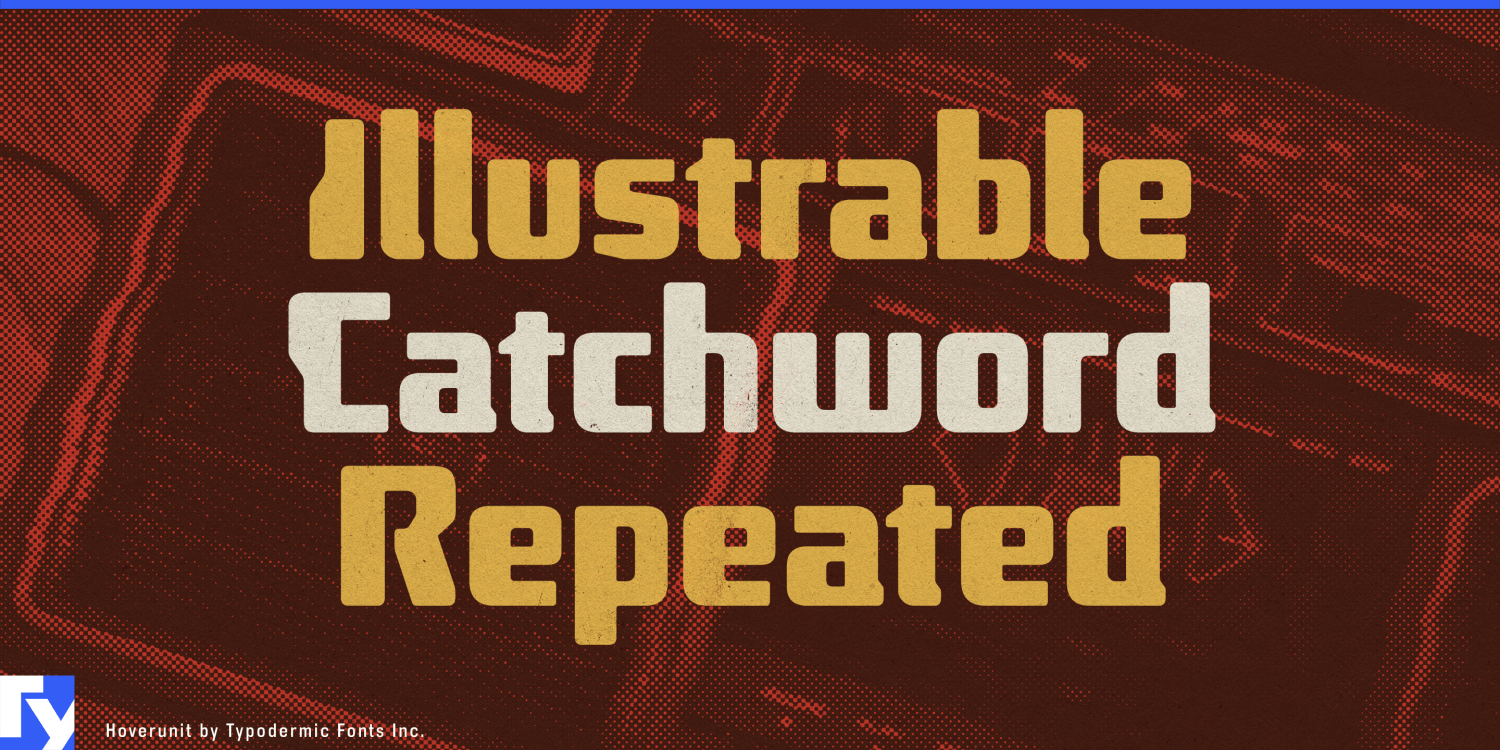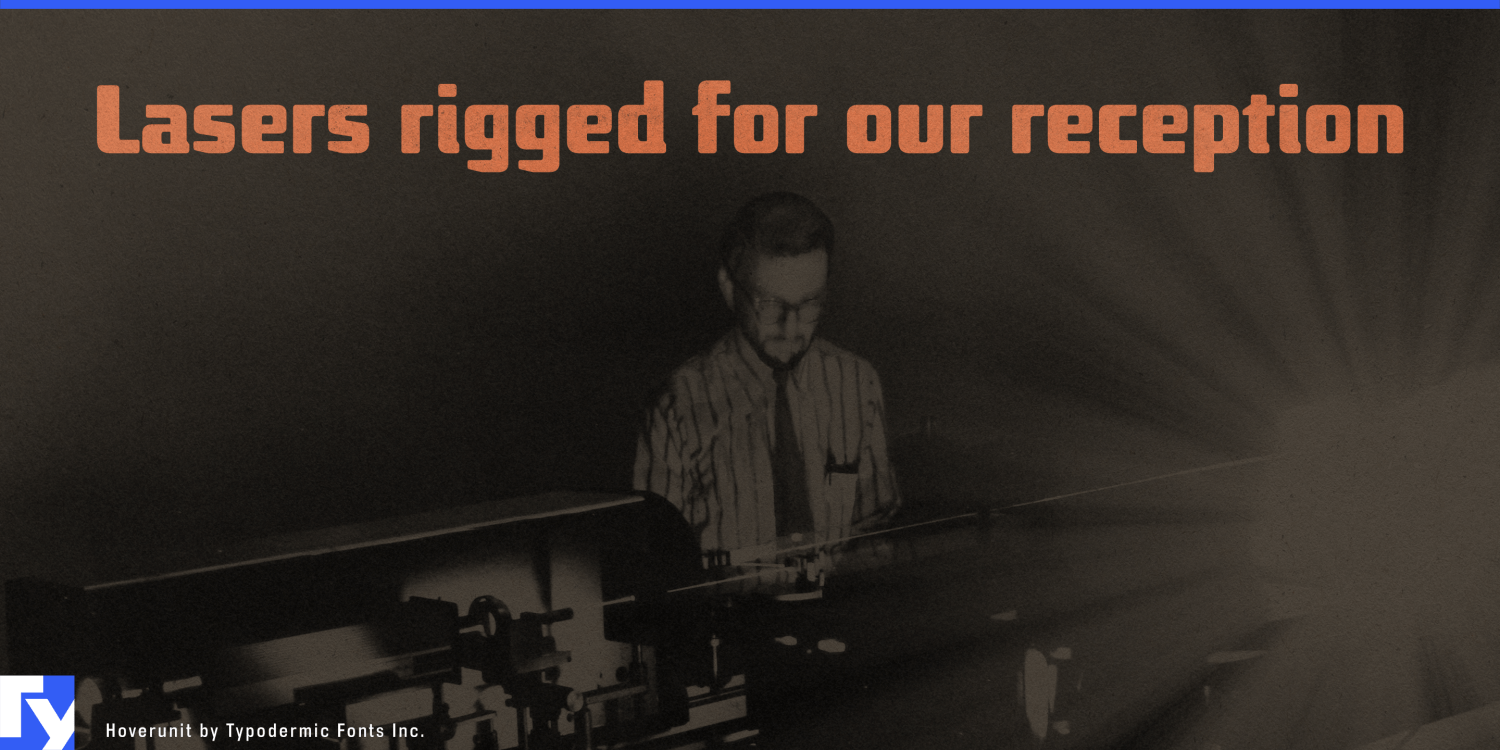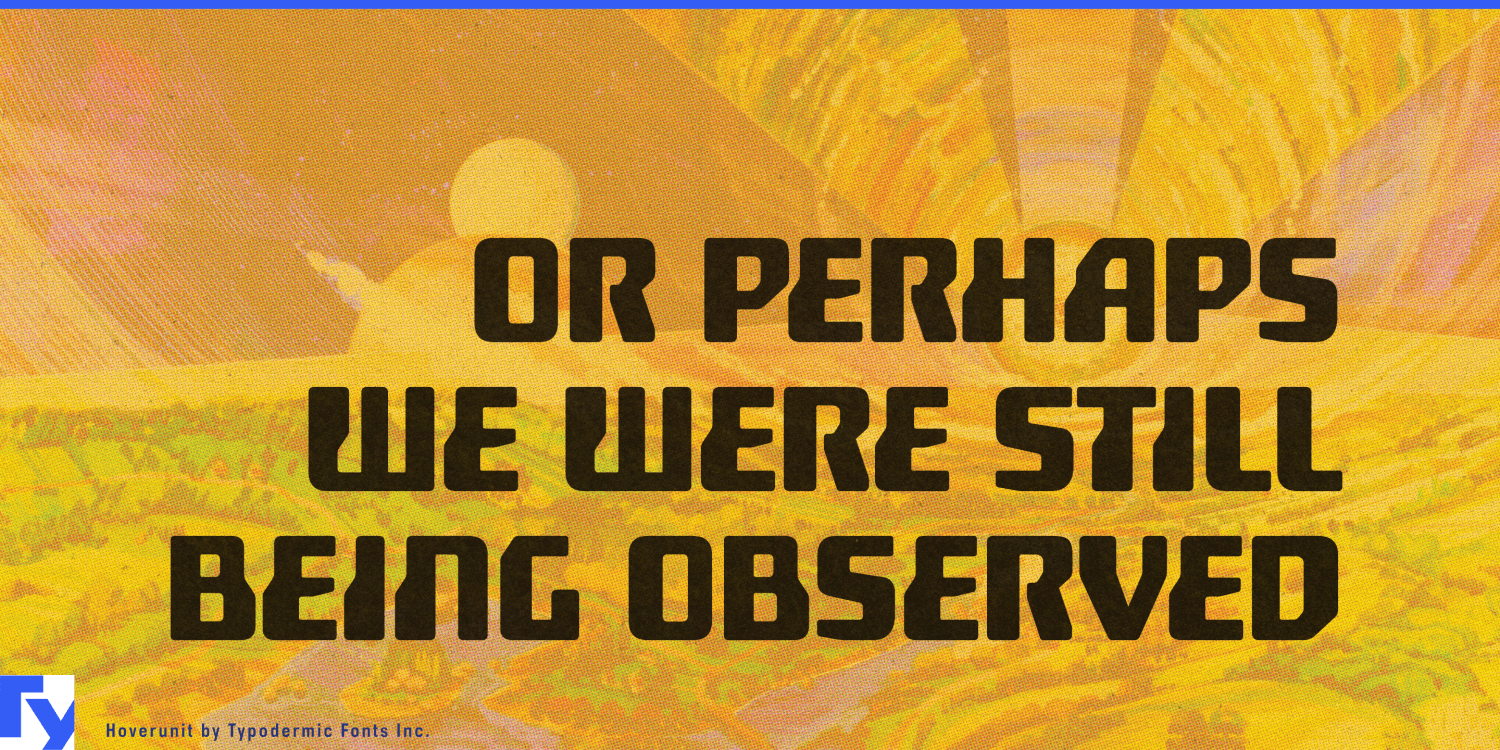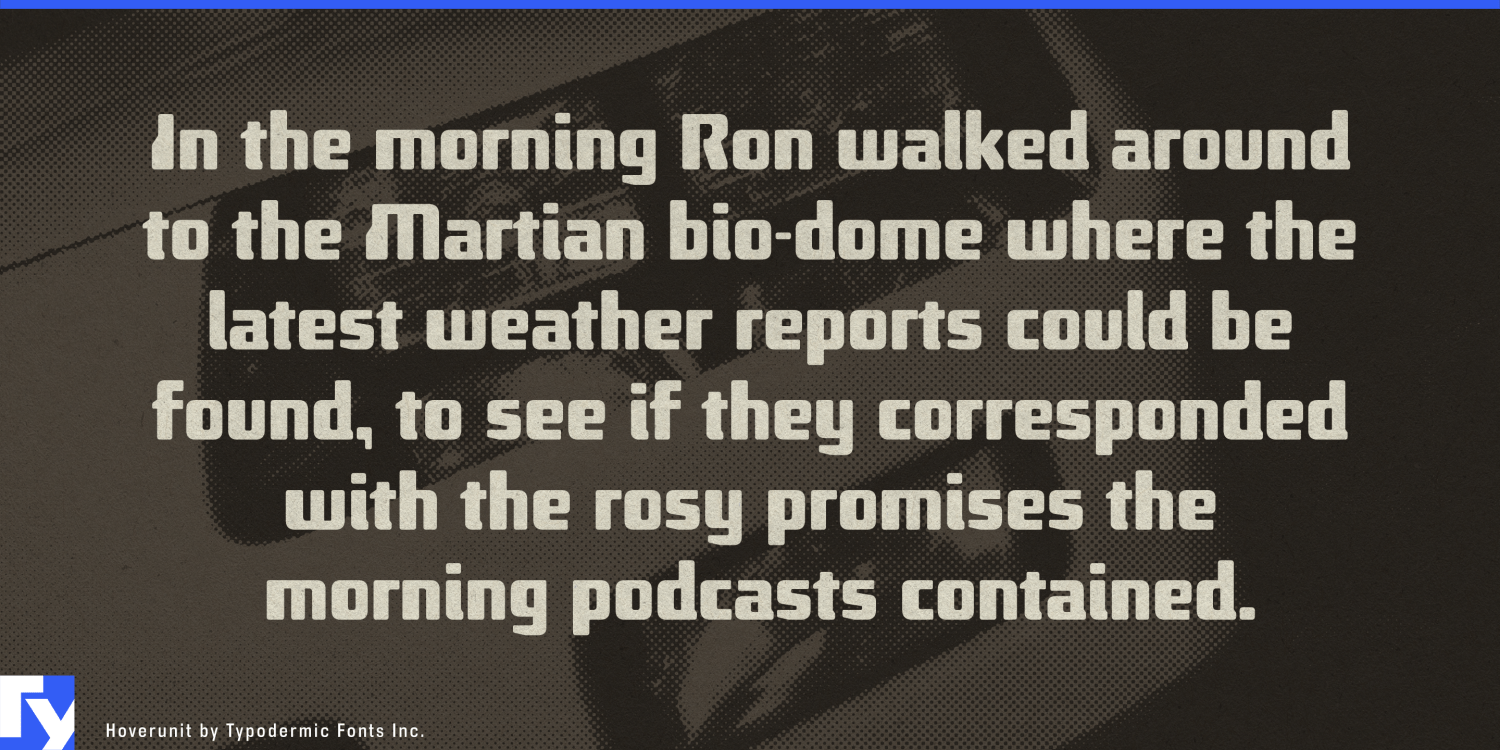
About Hoverunit
Attention, earthlings and extraterrestrial typographers alike! Prepare for liftoff with Hoverunit, the typeface that’s about to send your designs into hyperdrive. This isn’t just a font—it’s a wormhole to a dimension where the…